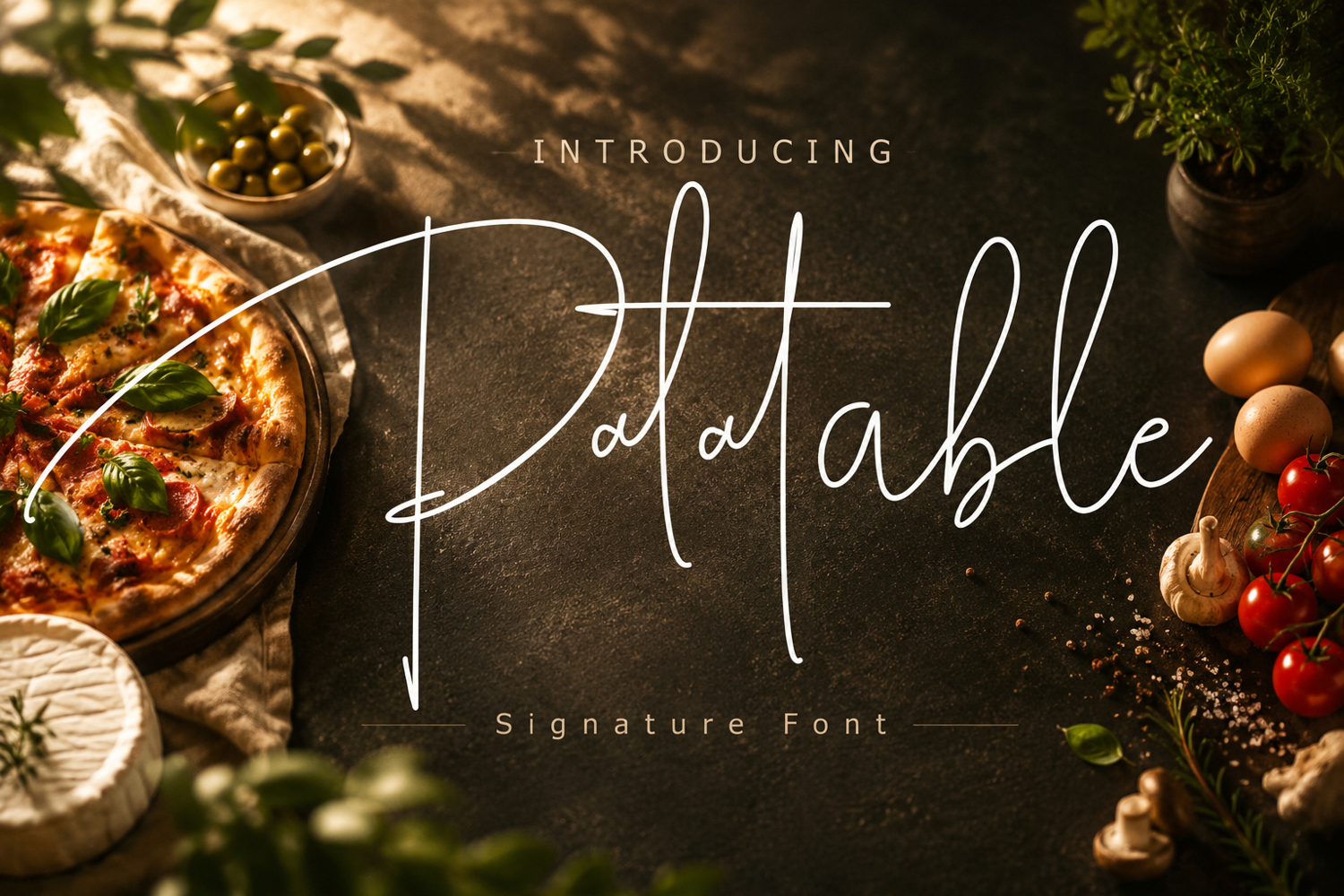
Palatable
Palatable is a very beautiful new handwritten font. Perfectly designed from beautiful natural handwriting for any design project you can think of.
Use it to create beautiful greeting cards, wedding invitations, logos,